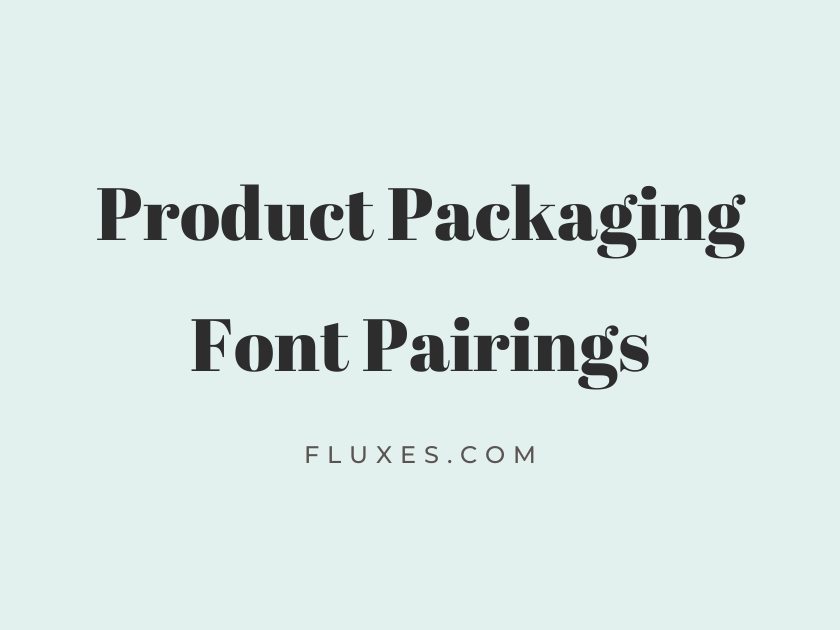
33 Best Font Pairings for Product Packaging
Packaging typography has to do two jobs at once: grab attention on a crowded shelf and stay legible on a small label, tube, or pouch. The strongest font pairings for product packaging balance a distinctive display face with a workhorse text font that holds up at tiny sizes, and the best Google Fonts pairings for this use case tend to share either an era, a mood, or a structural logic even while contrasting in weight and personality.
Abril Fatface + Lato
Small Batch Hot Sauce
Made with slow-roasted peppers and a touch of smoked sea salt.
Abril Fatface brings the high-contrast, ink-heavy drama of a vintage label press, while Lato’s even, humanist strokes keep the ingredient list and legal copy calm and readable. This split works well on gourmet condiments, jams, and hot sauces that want a hand-crafted feel without sacrificing clarity.
Playfair Display + Karla
Radiance Renewal Serum
A lightweight formula that restores clarity and softness overnight.
Playfair Display’s sharp thick-thin contrast reads as instantly upscale, and Karla’s understated geometry keeps directions for use from competing with it. This is a dependable combination for skincare and cosmetics packaging aiming at a premium, editorial shelf presence.
Bebas Neue + Work Sans
Charged Up Energy
Zero sugar, natural caffeine, and electrolytes for every workout.
Bebas Neue is condensed and loud, built for cans that need to shout their name from across a cooler. Work Sans is neutral enough to carry nutrition facts and taglines without fighting for attention, which is exactly what fast-moving beverage packaging needs.
Oswald + Open Sans
Hopyard Craft Lager
Brewed in small batches with citrus-forward American hops.
Oswald’s condensed industrial letterforms echo classic brewery signage, and Open Sans is one of the most reliable text faces for small print on cans and bottle necks. Together they suit craft beer, cider, and other beverage lines with a working-class, no-nonsense identity.
Cormorant Garamond + Jost
Estate Reserve Pinot Noir
Grown on limestone slopes and aged eighteen months in French oak.
Cormorant Garamond has the slender, engraved feel of a wine label etched decades ago, while Jost’s geometric simplicity modernizes the back label without breaking the mood. It is a natural fit for wine, spirits, and other bottled goods that trade on heritage.
Anton + Rubik
Extra Crunch Tortilla Chips
Non-GMO corn, stone-ground and fried in sunflower oil.
Anton is heavy and compressed enough to dominate a foil pouch from arm’s length, and Rubik’s rounded corners keep supporting text friendly rather than aggressive. This pairing is well suited to snack packaging that wants boldness without feeling harsh.
Fjalla One + Nunito Sans
Smoked Paprika Blend
A warm, earthy spice mix hand-blended in small kitchen batches.
Fjalla One’s narrow, sturdy caps work as a compact stamp on a spice jar lid, and Nunito Sans has enough warmth in its curves to keep the ingredient panel approachable. The pair suits pantry staples that want to feel both practical and artisanal.
Prata + Mulish
Ceylon Silver Tips Tea
A delicate high-grown black tea with notes of honey and stone fruit.
Prata’s fine serifs and generous proportions suggest ceremony and care, appropriate for a tea tin meant to be kept rather than tossed. Mulish stays out of the way with steeping instructions, giving the pairing a quiet luxury without excess ornament.
Marcellus + Assistant
Botanical Night Cream
Infused with rosehip oil, shea butter, and evening primrose.
Marcellus has a restrained classical structure that feels apothecary rather than trendy, while Assistant’s tidy, low-contrast letters are made for tight ingredient lists on small cartons. This combination reads well on skincare and wellness boxes going for a natural, clinical tone.
DM Serif Display + Inter
Single Origin Dark Chocolate
72% cacao from a family farm in northern Ecuador.
DM Serif Display has just enough flourish to feel indulgent on a chocolate bar sleeve, and Inter’s clean, screen-tested letterforms keep percentages and origin details crisp at small sizes. It is a strong choice for confectionery brands balancing craft and modern design.
Libre Caslon Display + PT Sans
Sourdough Country Loaf
Libre Caslon Display
Naturally leavened and baked fresh every morning in small batches.
Libre Caslon Display has the chunky warmth of a bakery signboard, and PT Sans is versatile enough to sit on a paper wrapper or a twist-tie tag without losing legibility. Together they suit bread, pastry, and other bakery packaging with a homemade character.
Space Grotesk + IBM Plex Sans
Nova Wireless Earbuds
Ten hours of playback with adaptive noise cancellation built in.
Space Grotesk’s slightly quirky geometry gives a tech product some personality beyond generic minimalism, and IBM Plex Sans, designed for technical documentation, keeps specs and setup instructions crisp. This is a dependable pairing for electronics and gadget boxes.
Test every pairing at the actual print size, since a combination that looks striking on screen can fail on a two-inch spice jar label.
Reserve display fonts for product names and short claims, and let the body font carry ingredients, directions, and legal copy.
Keep contrast high between the two fonts in weight or structure so shoppers can tell headline from detail at a glance on a crowded shelf.
When in doubt, pick a body font with a tall x-height, since it will stay legible even when printed small on foil, glass, or curved surfaces.